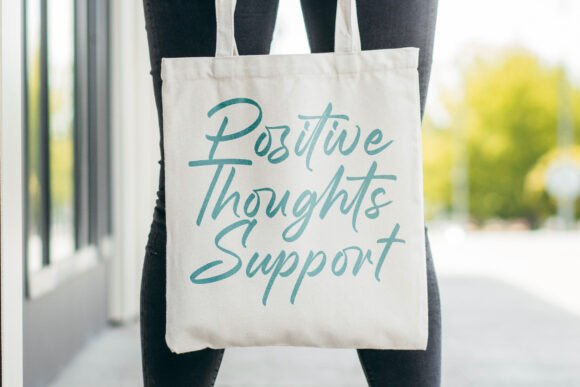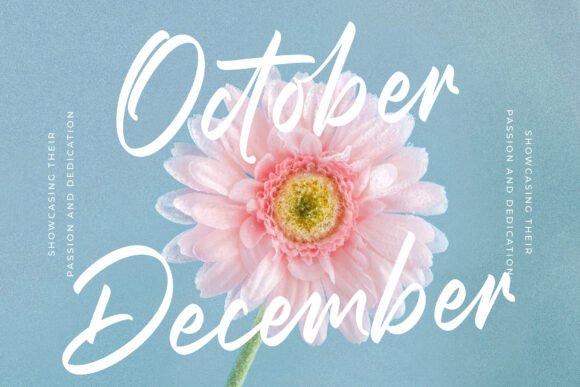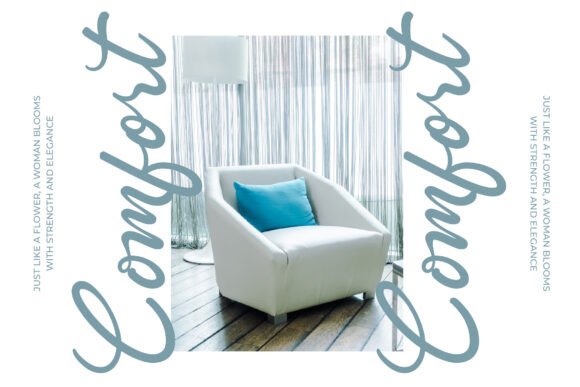
Introduction to Orebeaut Stumbler Font
Orebeaut Stumbler – Bold Handwritten Font , from Letterena, is a Luxury Script font, suitable for any projects such as: logos, branding projects, homeware designs, product packaging, mugs, quotes, posters, shopping bags, t-shirts, book covers, name card, invitation cards, greeting cards, label, photography, watermark, special events, and all your other luxury and beautiful projects that need a Luxury Script taste.
| 👤 Author | Letterena Studios |
Orebeaut Stumbler – Bold Handwritten Font , from Letterena, is a Luxury Script font, suitable for any projects such as: logos, branding projects, homeware designs, product packaging, mugs, quotes, pos
Key Features of Orebeaut Stumbler Font
- ✅ High quality design for professional projects
Why Choose Orebeaut Stumbler Font?
Orebeaut Stumbler Font offers exceptional quality and versatility, making it a valuable addition to your design toolkit. Whether you’re creating for personal projects or commercial use, Orebeaut Stumbler Font delivers professional results.